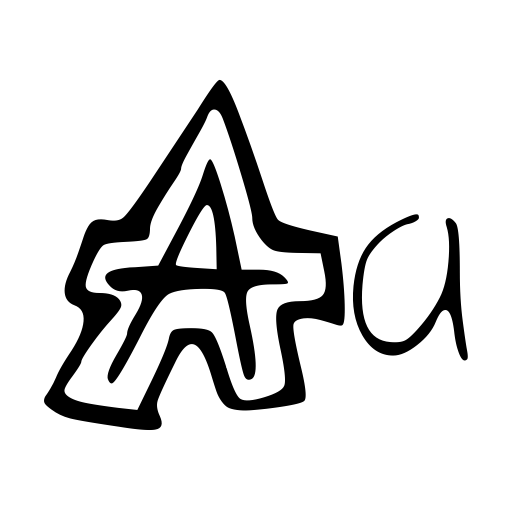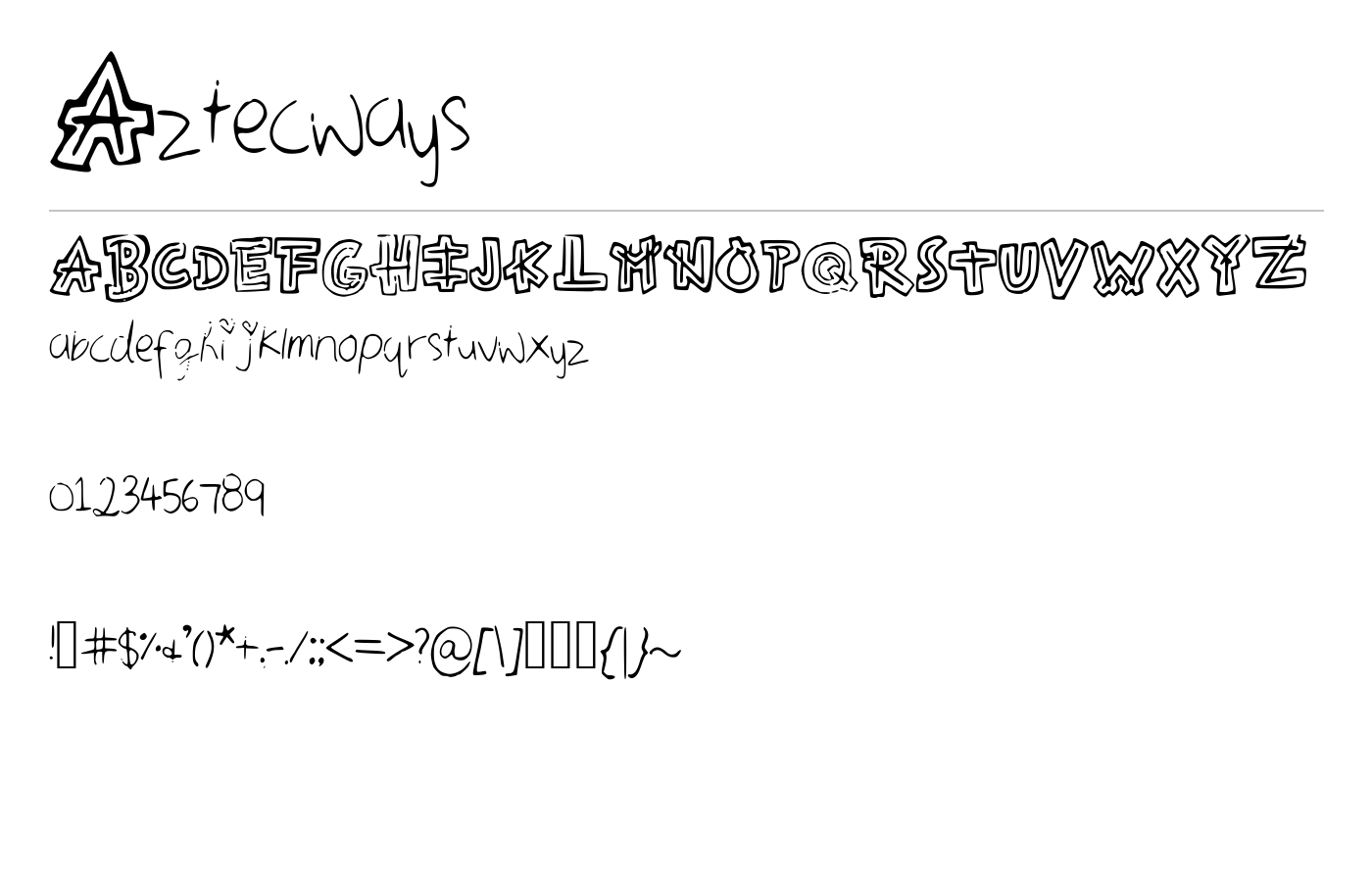
Aztecways is a playful and artistic display font that combines bold, decorative uppercase letters with delicate, hand-drawn lowercase characters. Its whimsical, slightly irregular design lends a creative and informal feel, making it ideal for projects that want to evoke a fun, youthful, or handcrafted vibe. This font works great for attention-grabbing headlines, posters, and branding that seeks a unique and lively personality.
Aztecways Font
About Aztecways Font